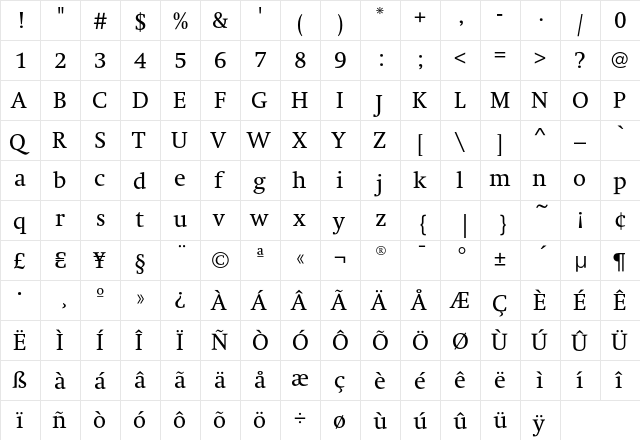
HeidelbergAntiqua Bold
Design Context for HeidelbergAntiqua Typeface
HeidelbergAntiqua takes a measured approach to typography — its balanced proportions and neutral character make it a reliable workhorse for both digital and print work. Its bold stroke weight gives it real presence on the page.